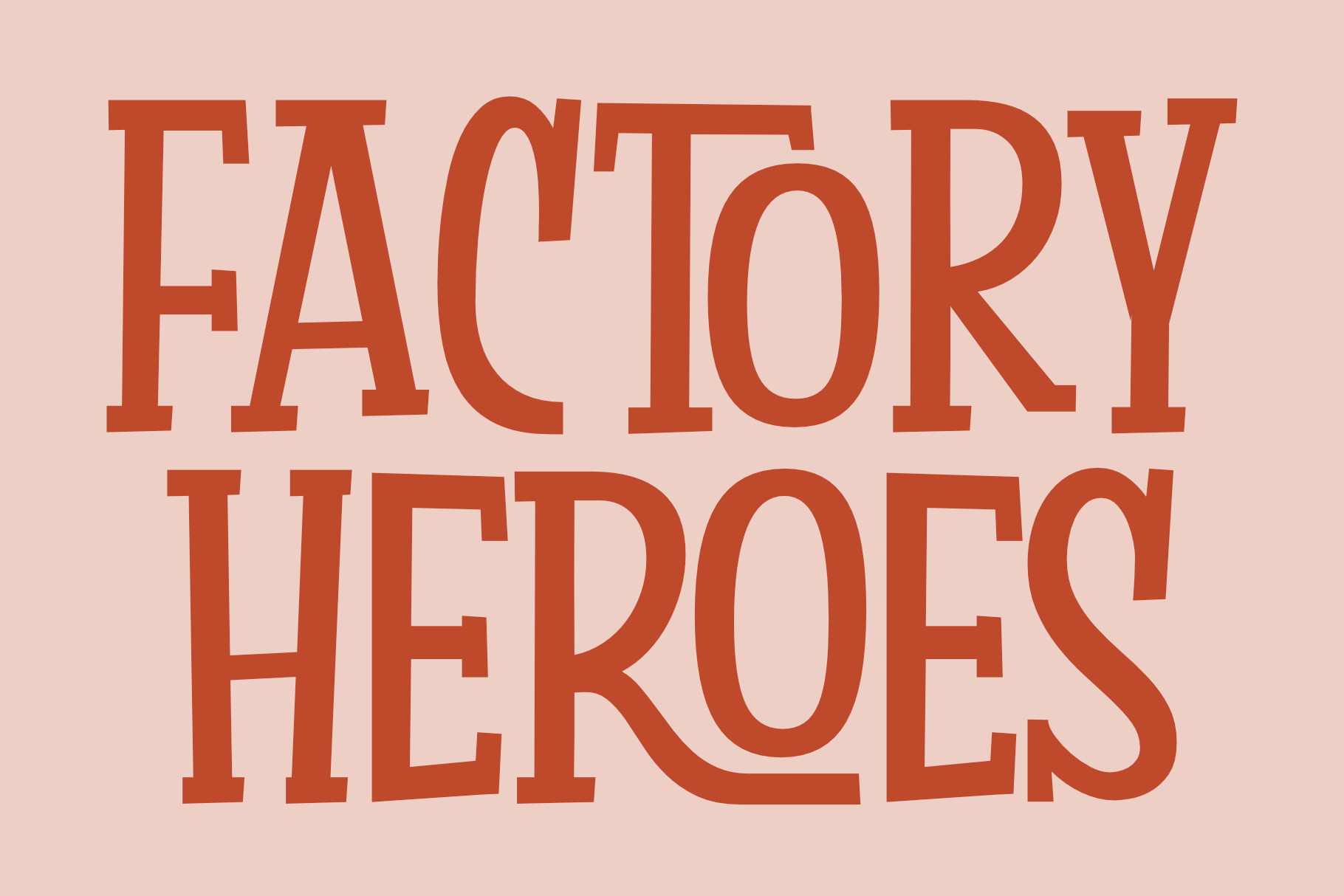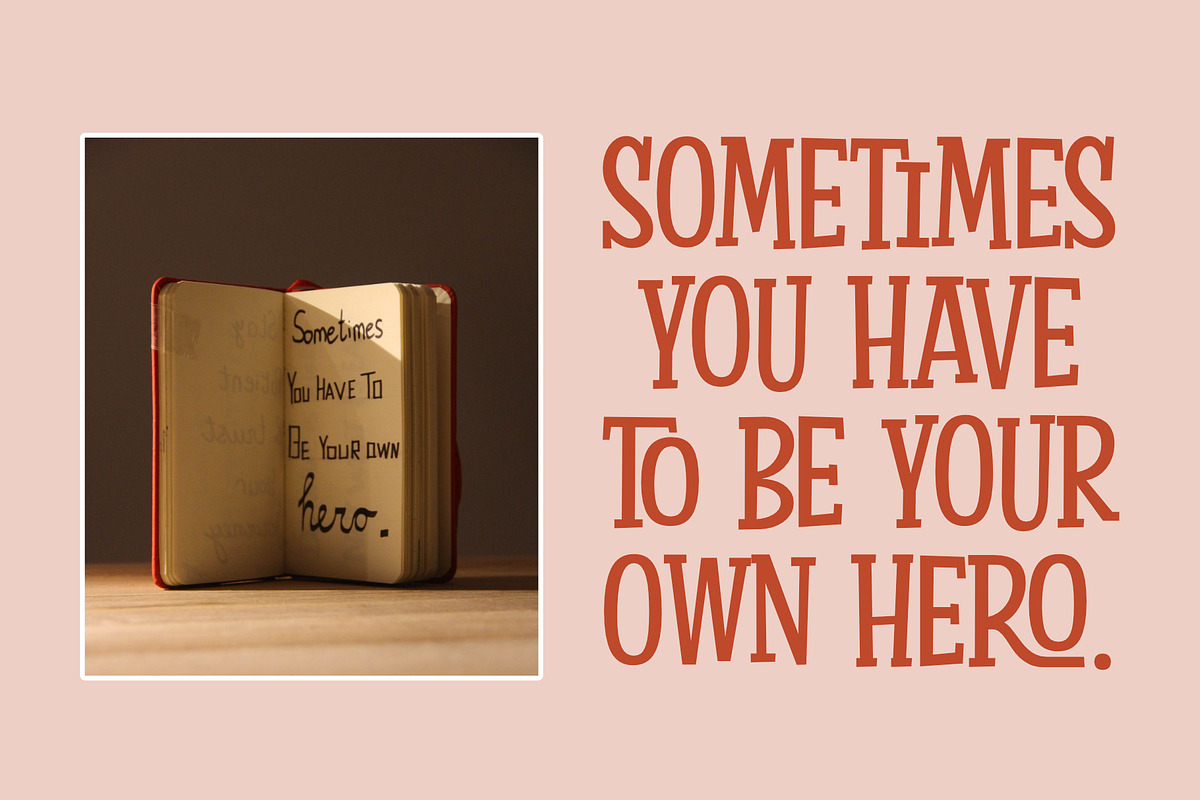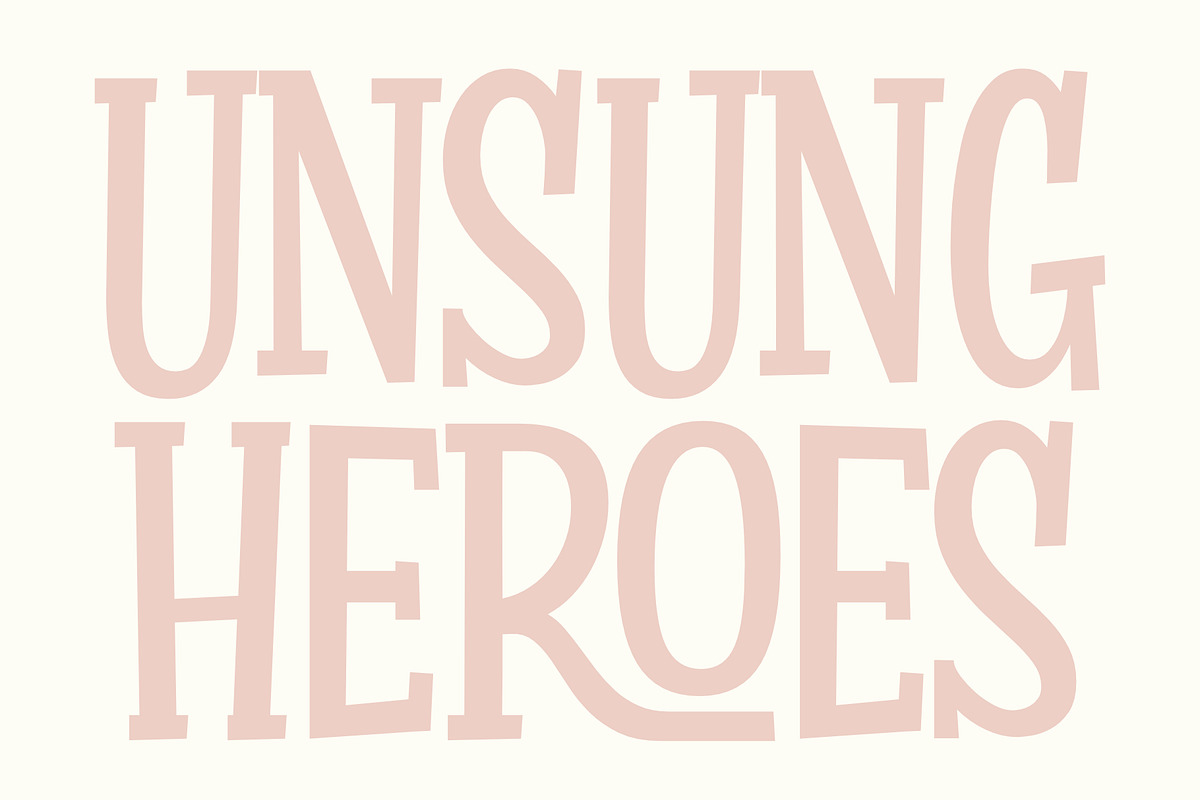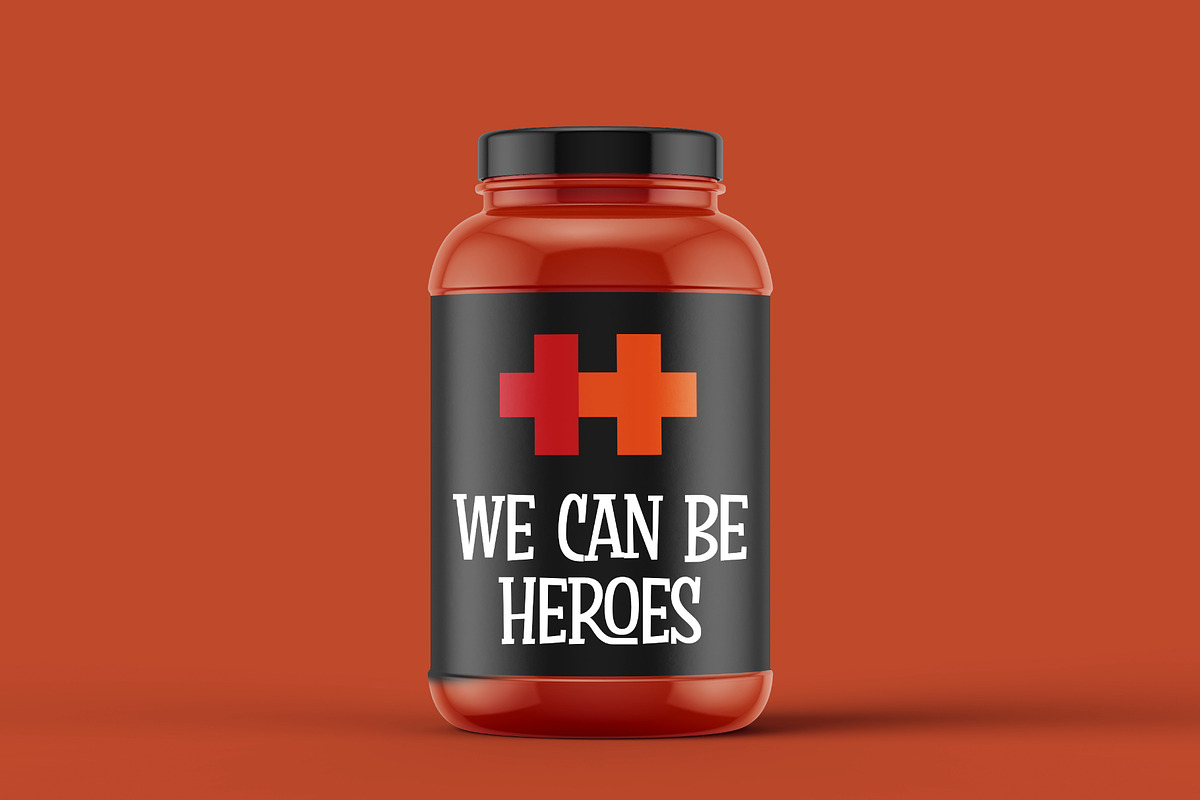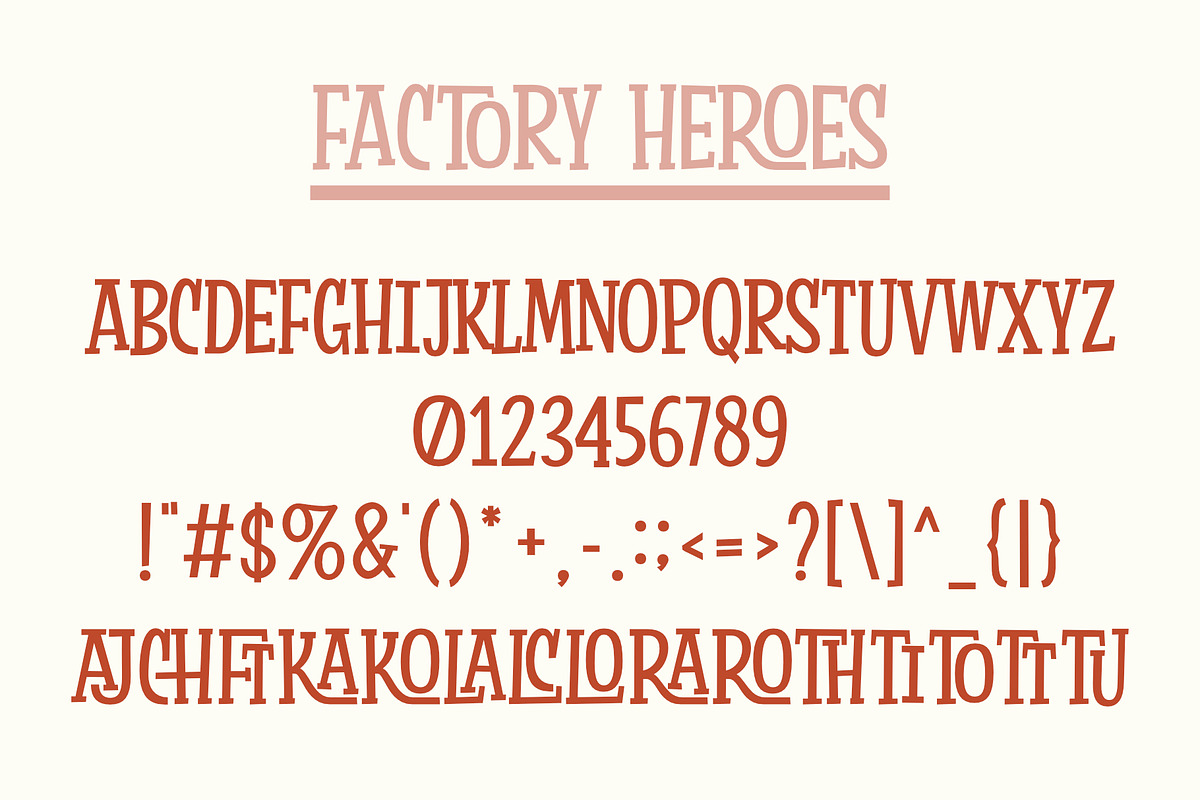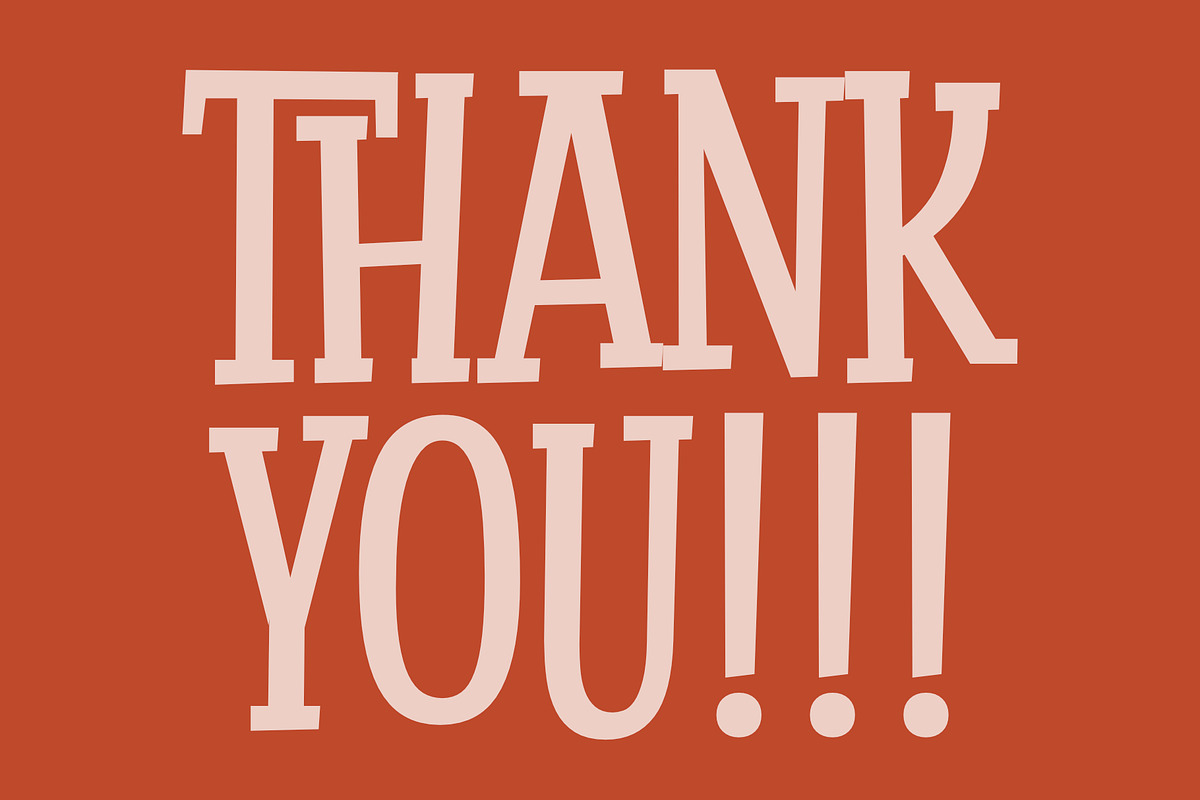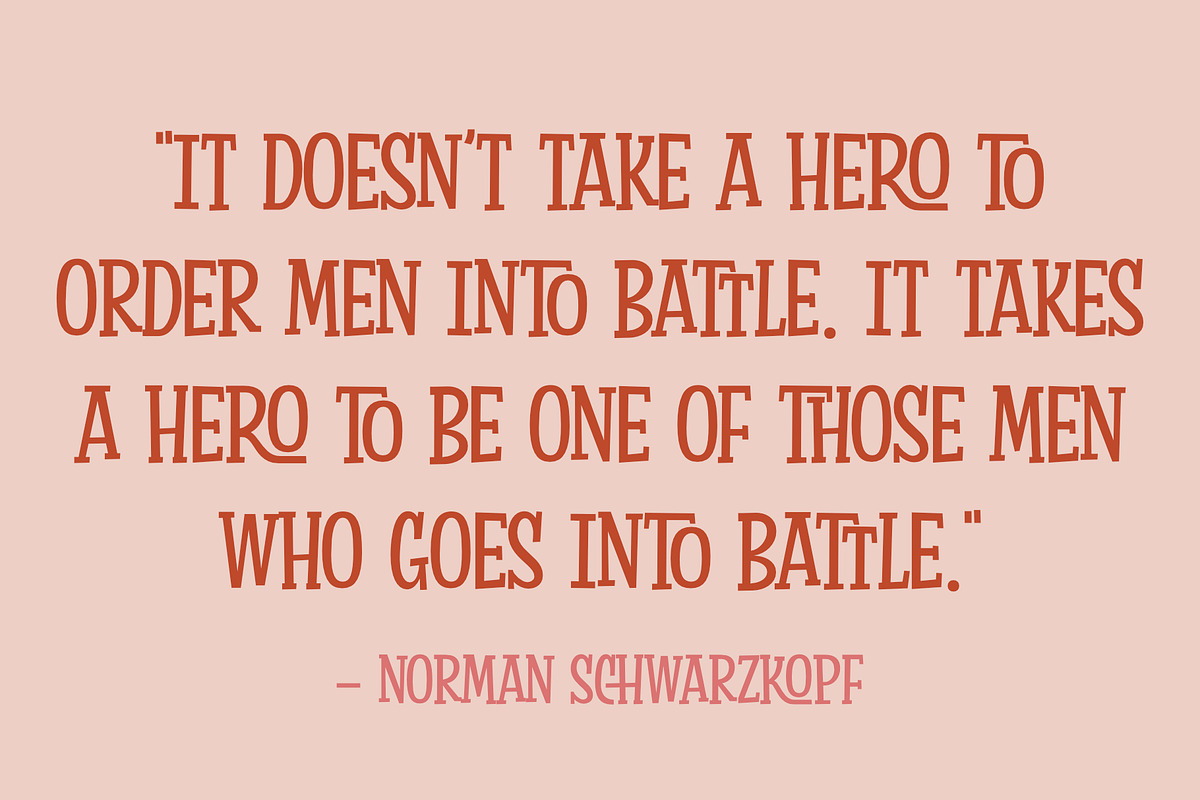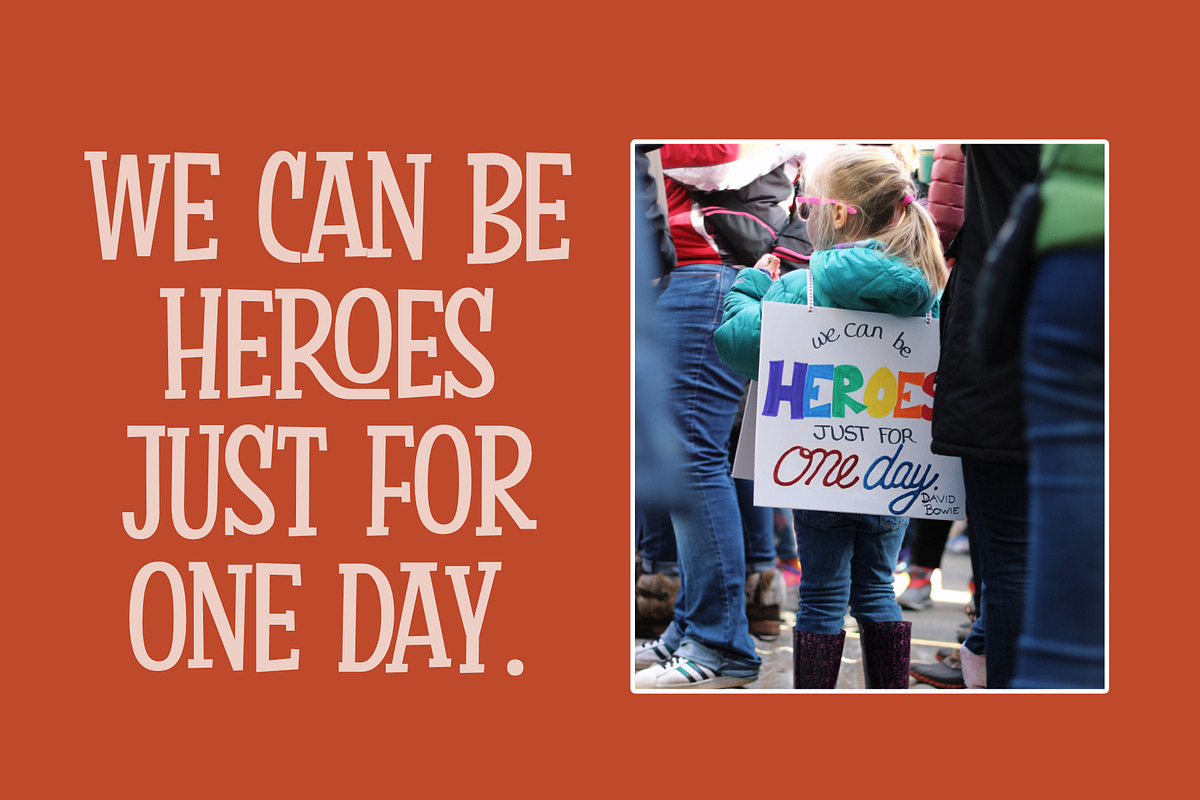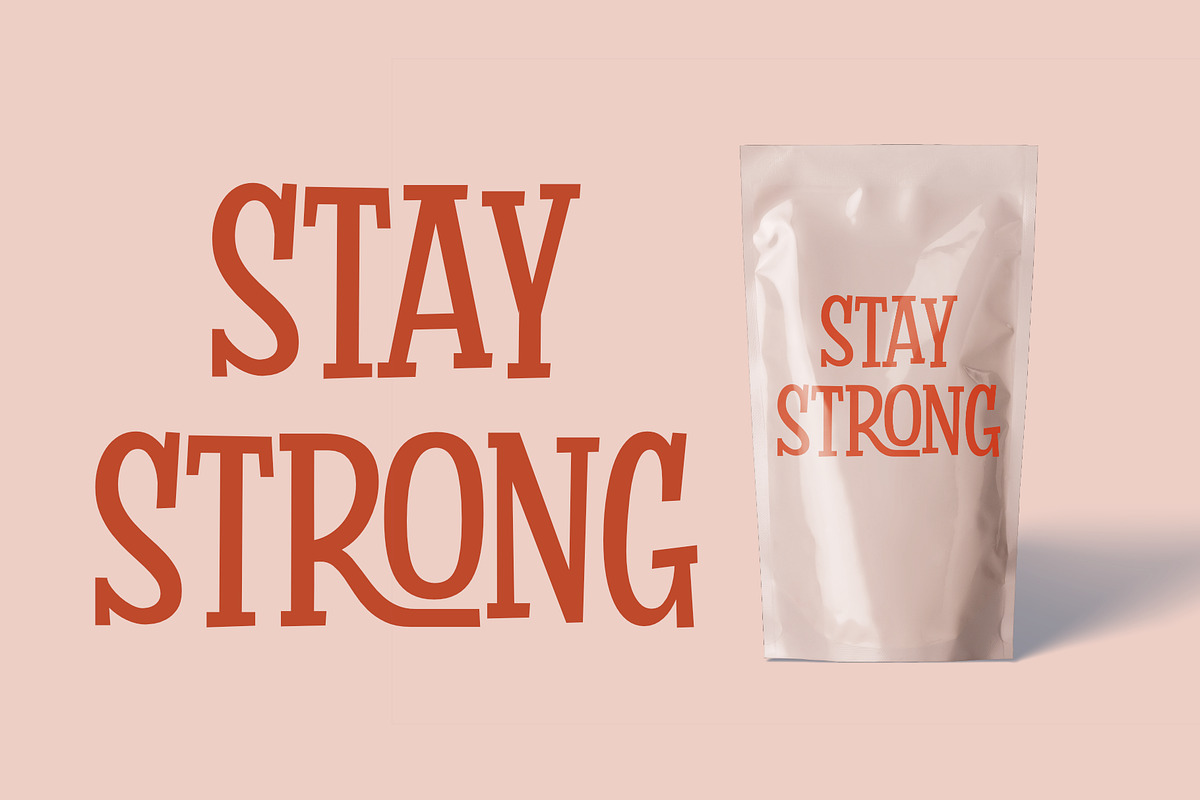
Factory Heroes - a Playful Font
Factory Heroes is a cool, playful and friendly display font. Whether you use it for cartoon related designs, children games or just any creation that requires a lovely touch, this font will be an amazing choice.